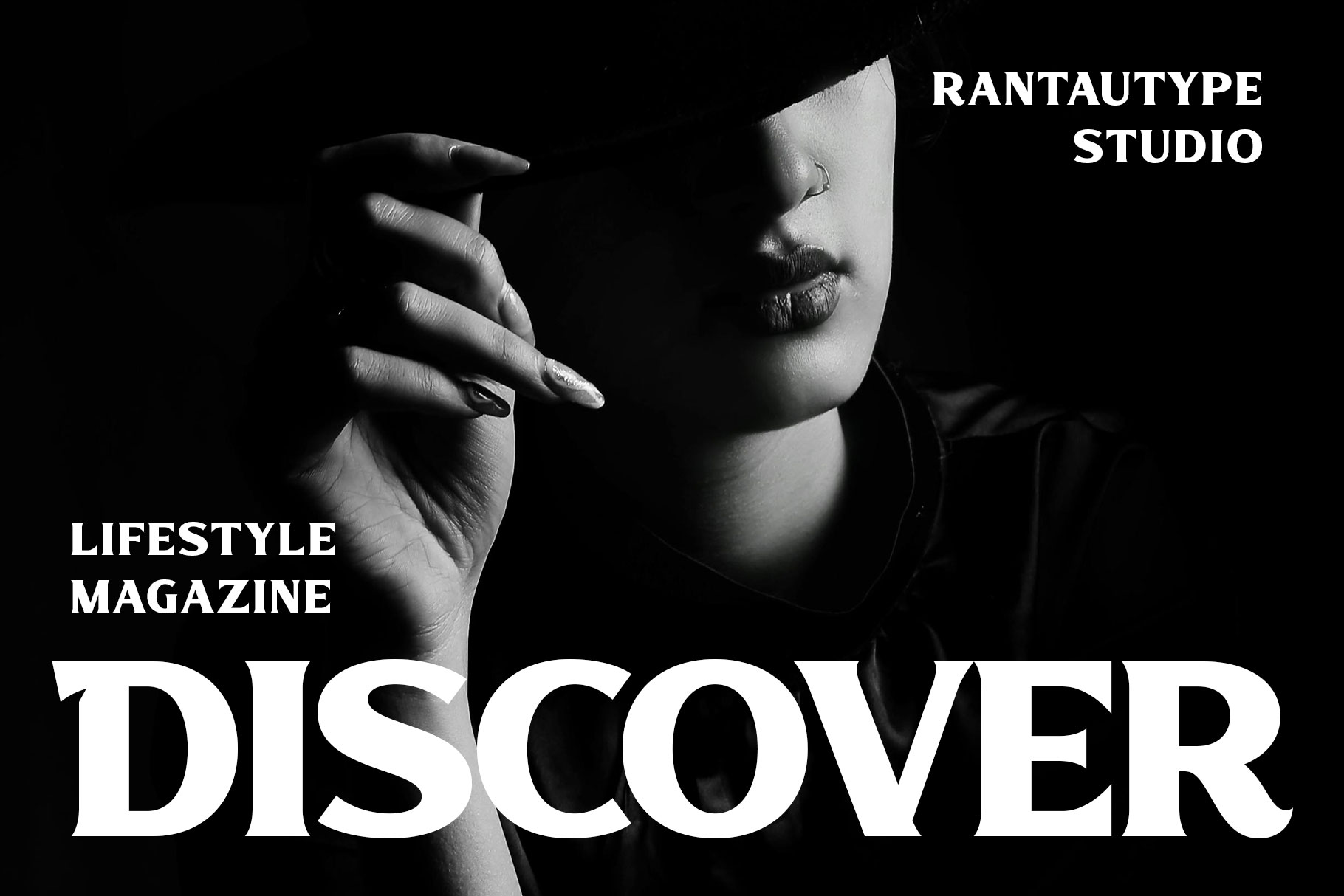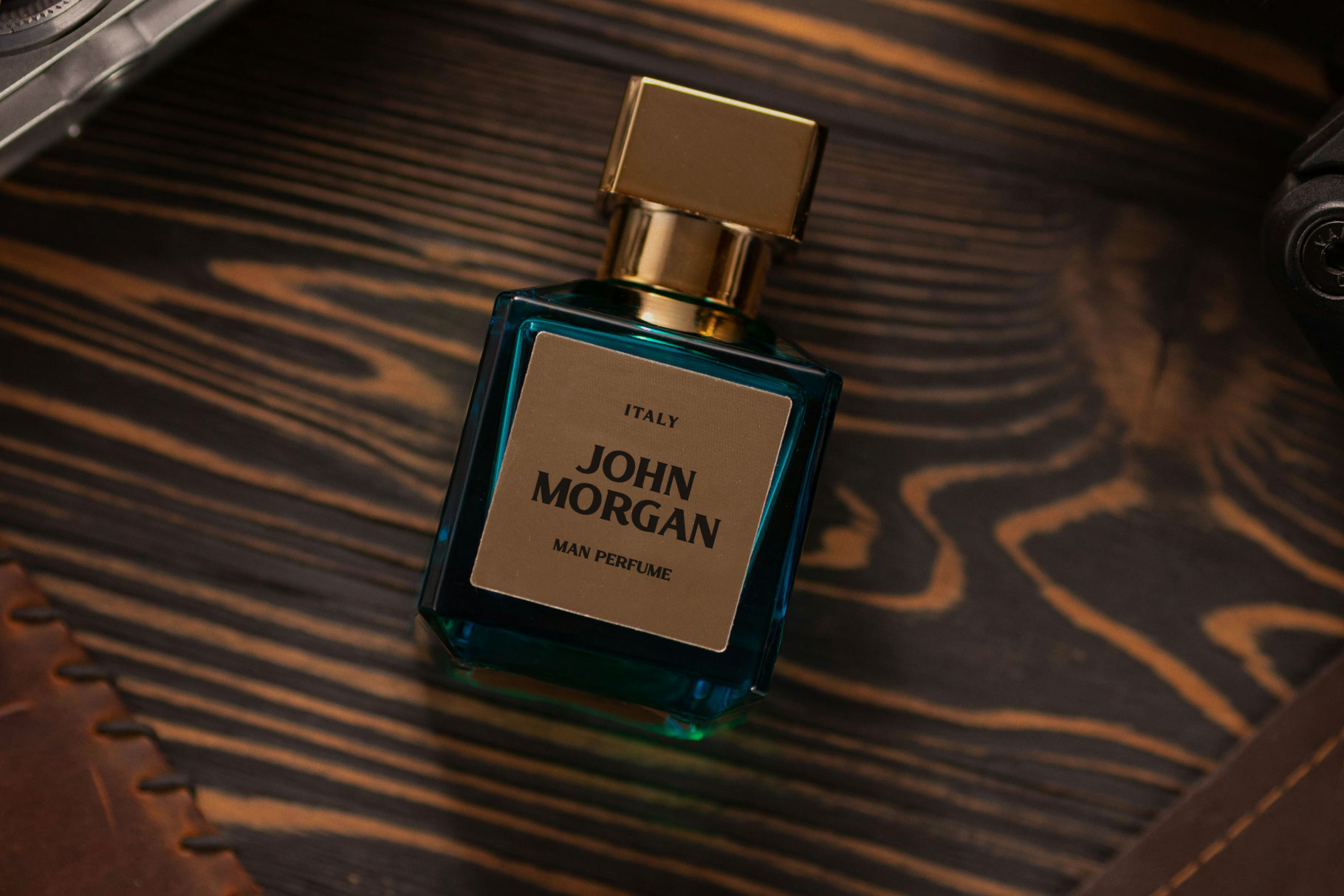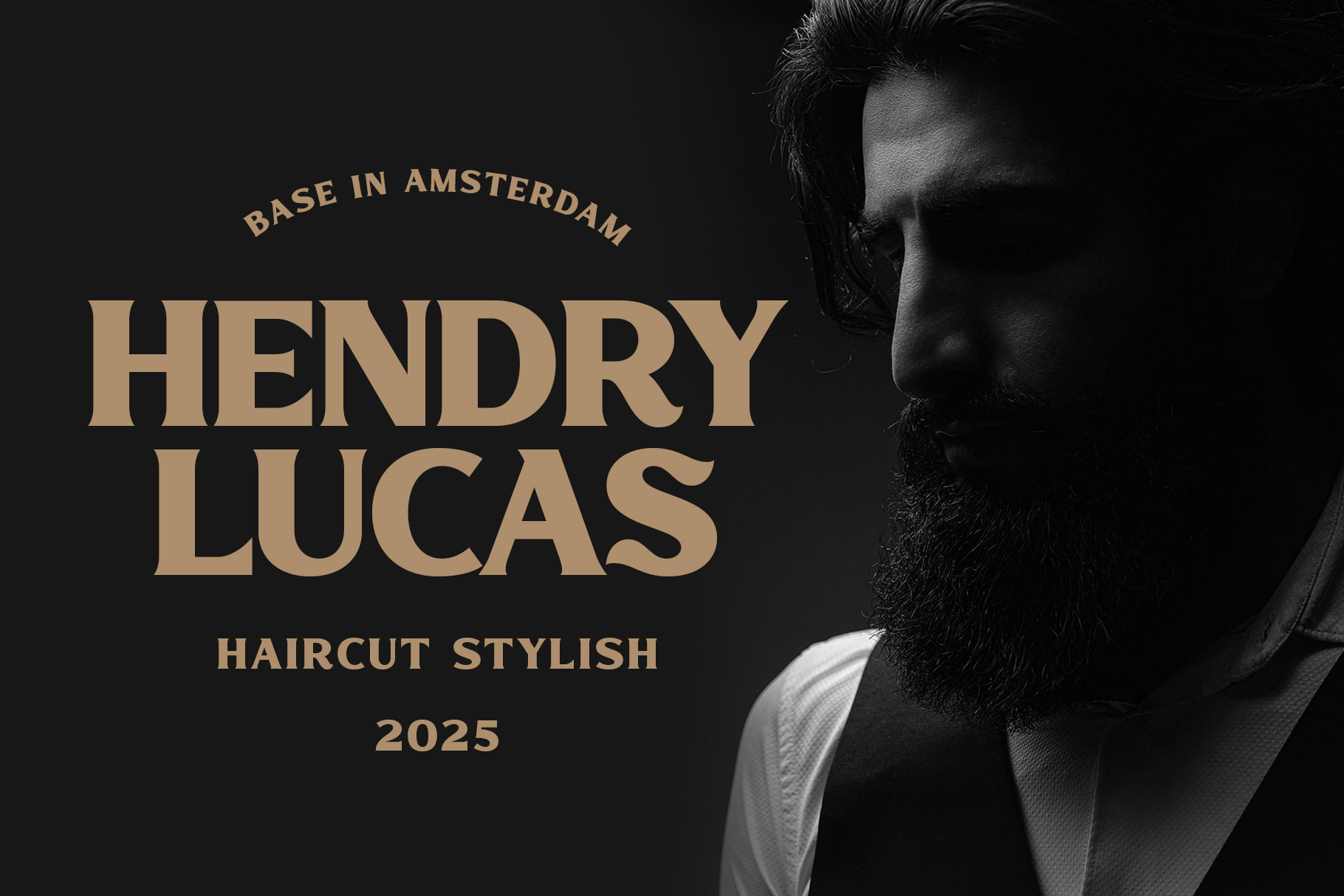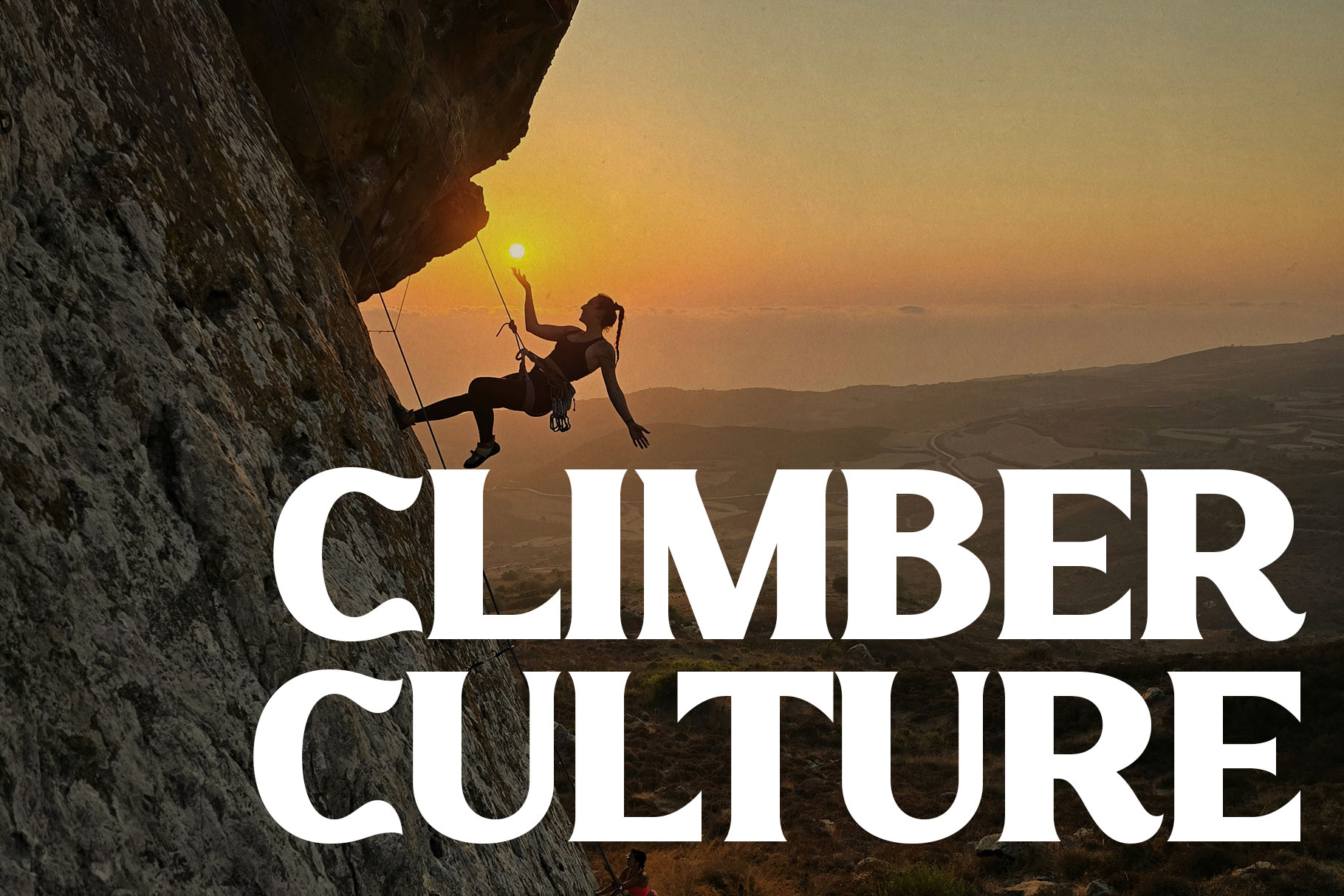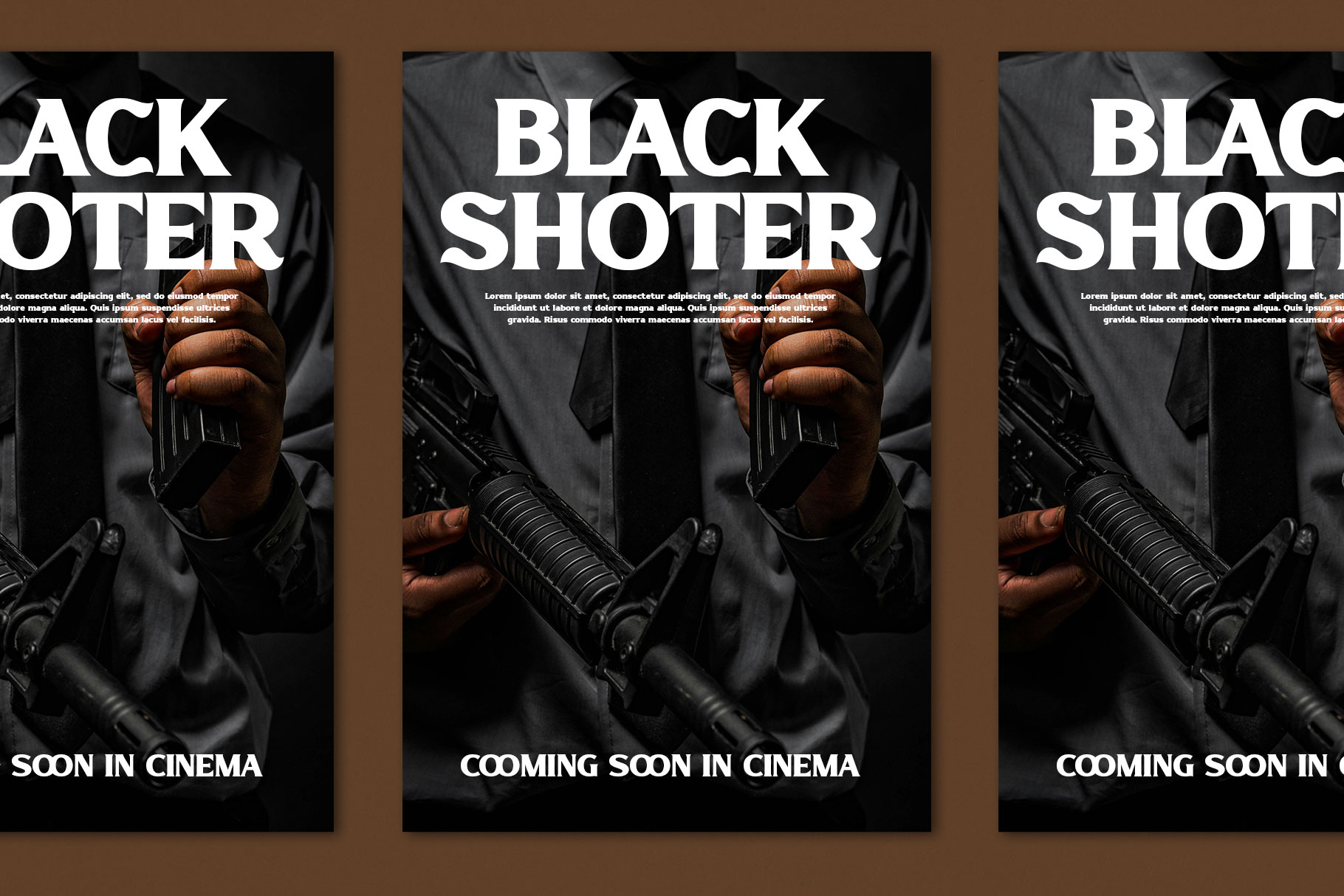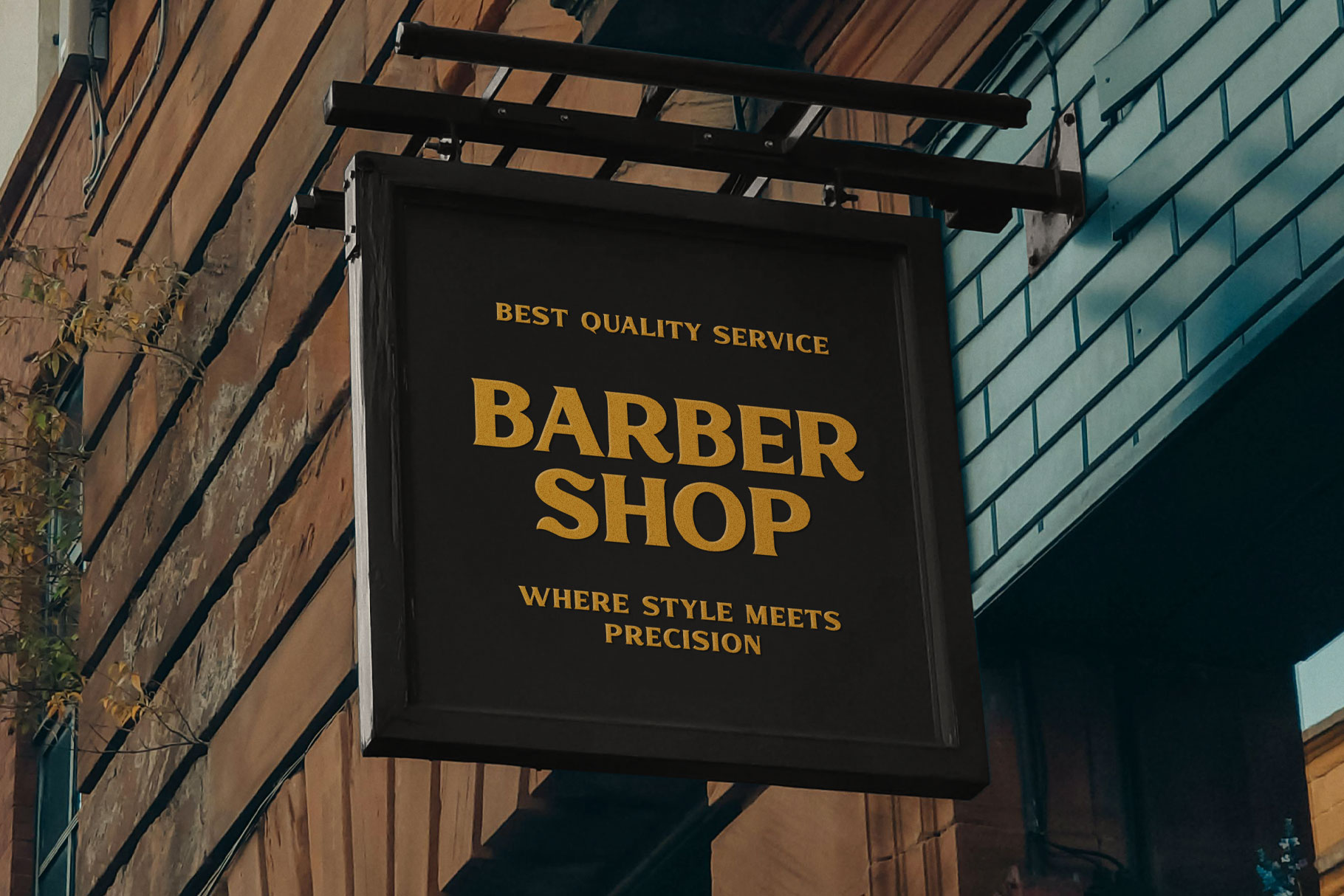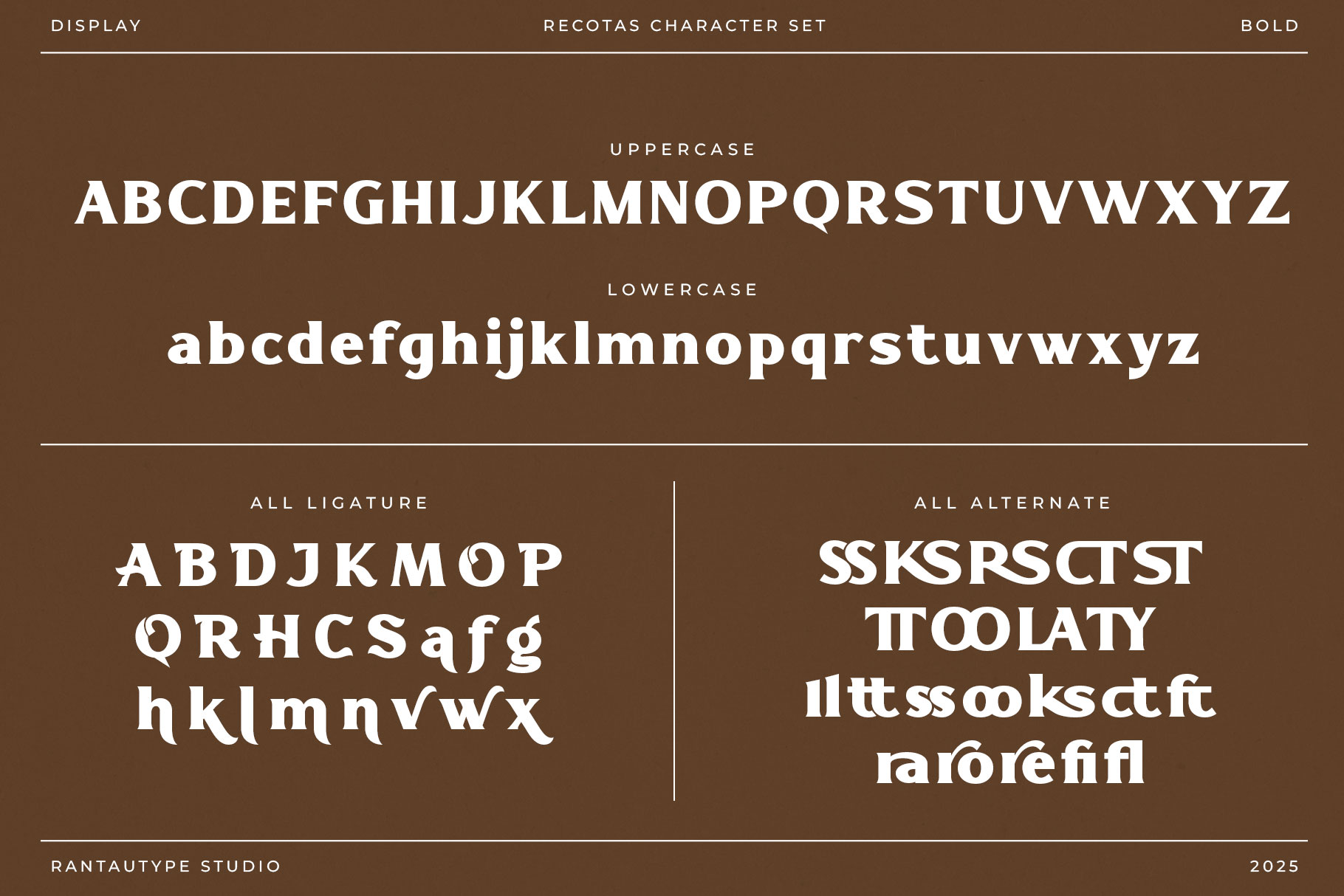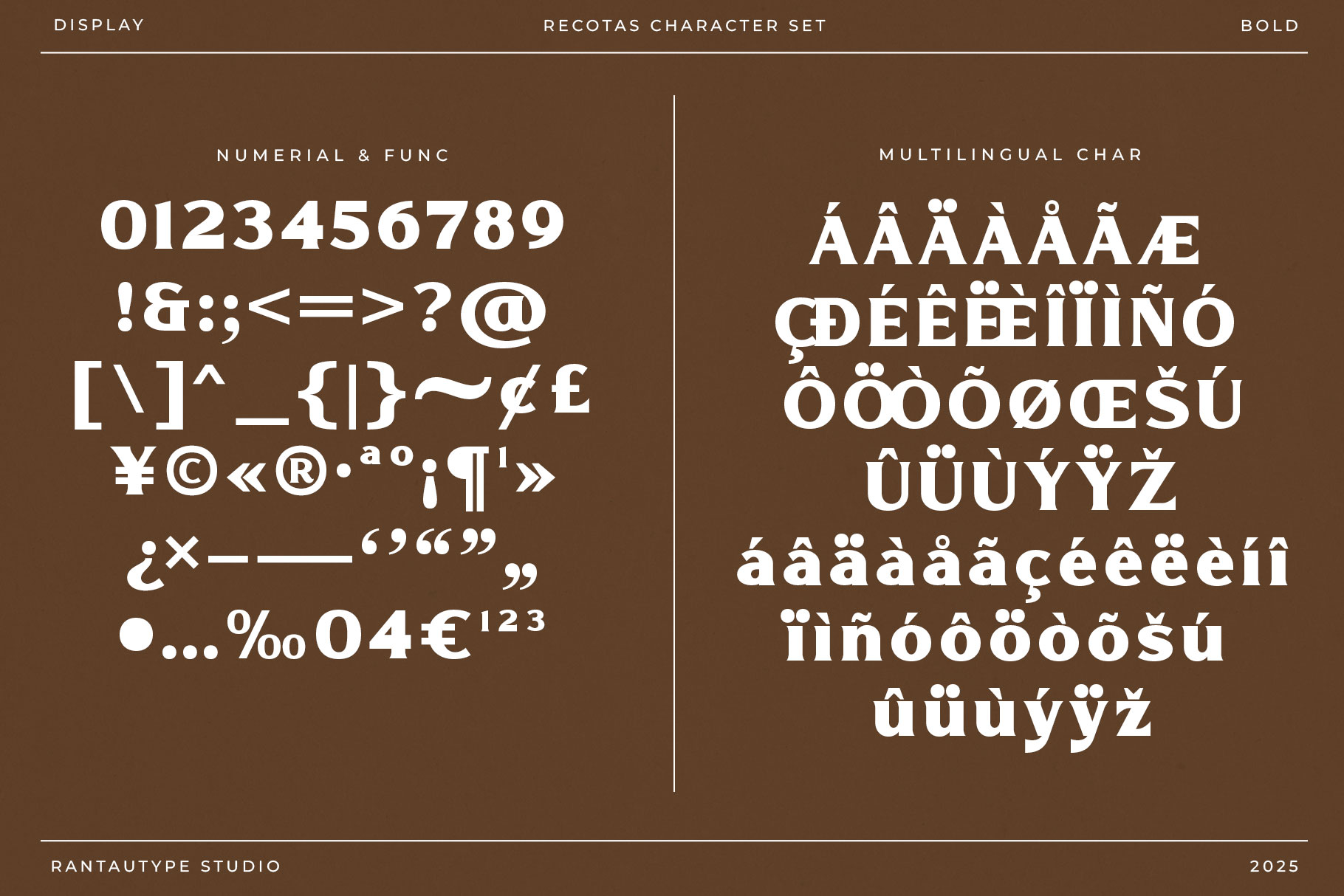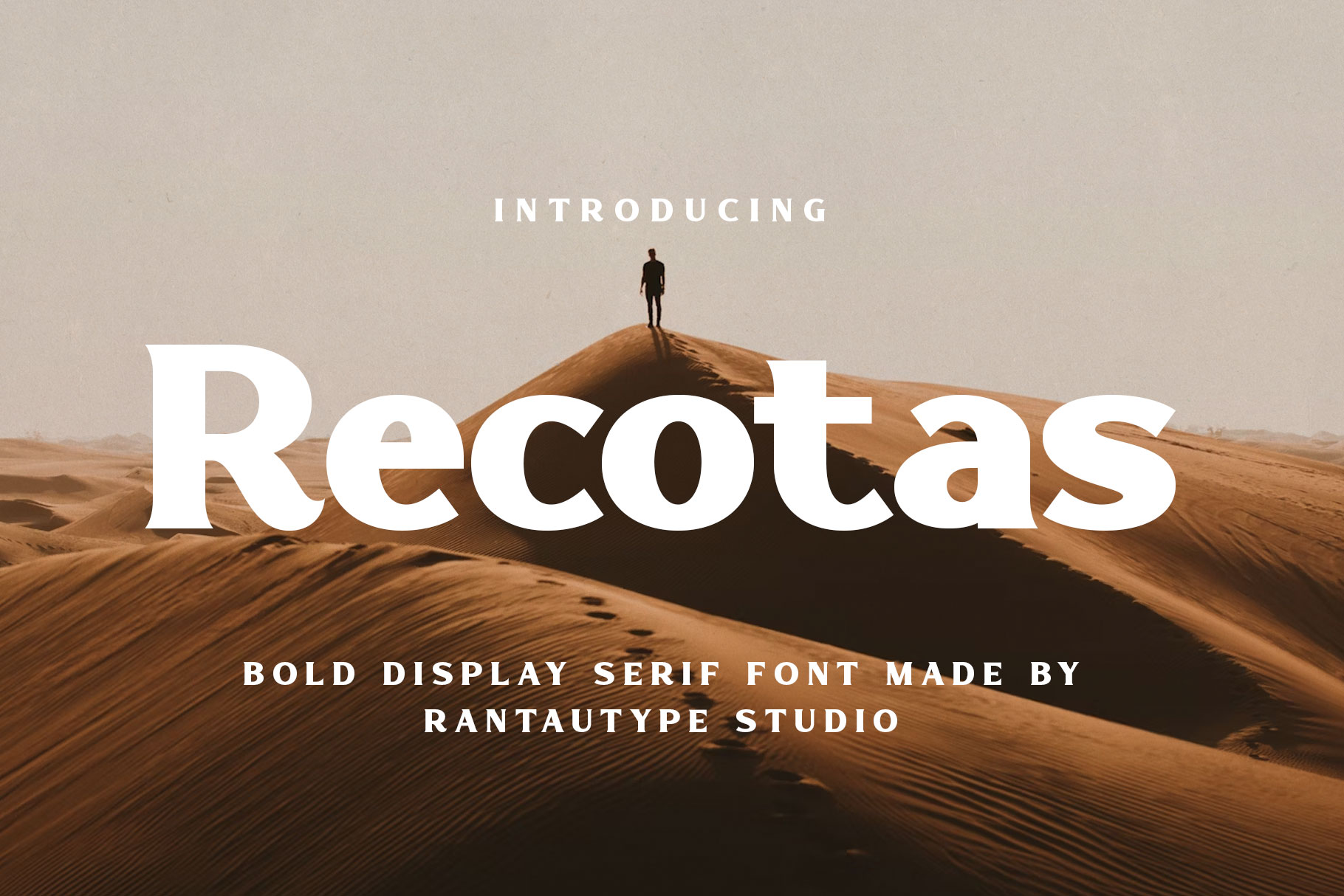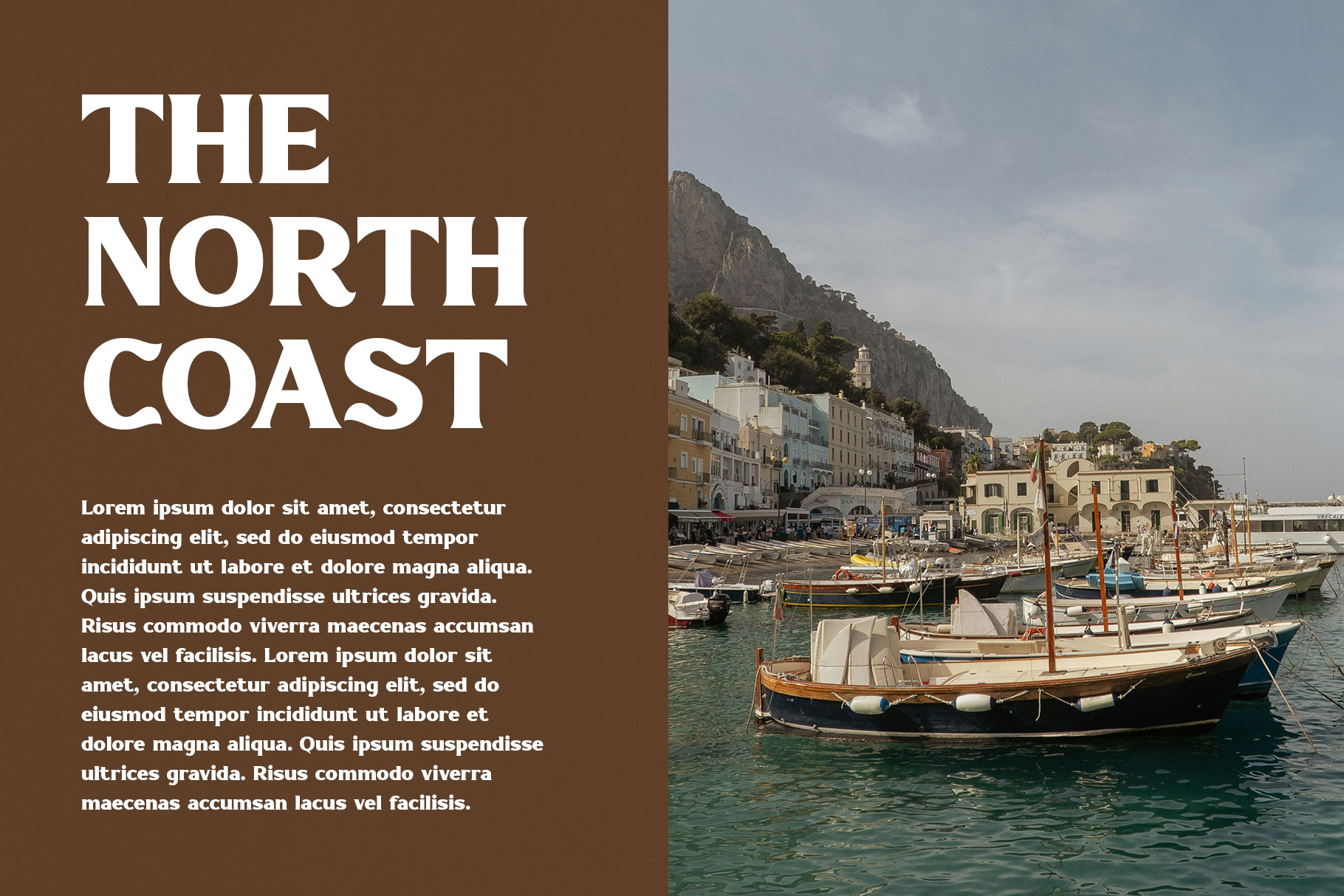
Recotas Bold Display Serif Font
Recotas is bold serif font made by rantautype studio. Recotas come with strong letterforms, confident strokes, and refined serifs, this typeface blends classic elegance with powerful modern presence.
Recotas is a perfectly choice for any creative endeavor, creating, modern, lifestyle design such as logotype, title, cover, branding, invitations, wedding designs, display and magazine, social media posts, advertisements, printed quotes, product packaging, corporate brand, product designs, labels, photography, watermarks, special events and any other project with modern touch.